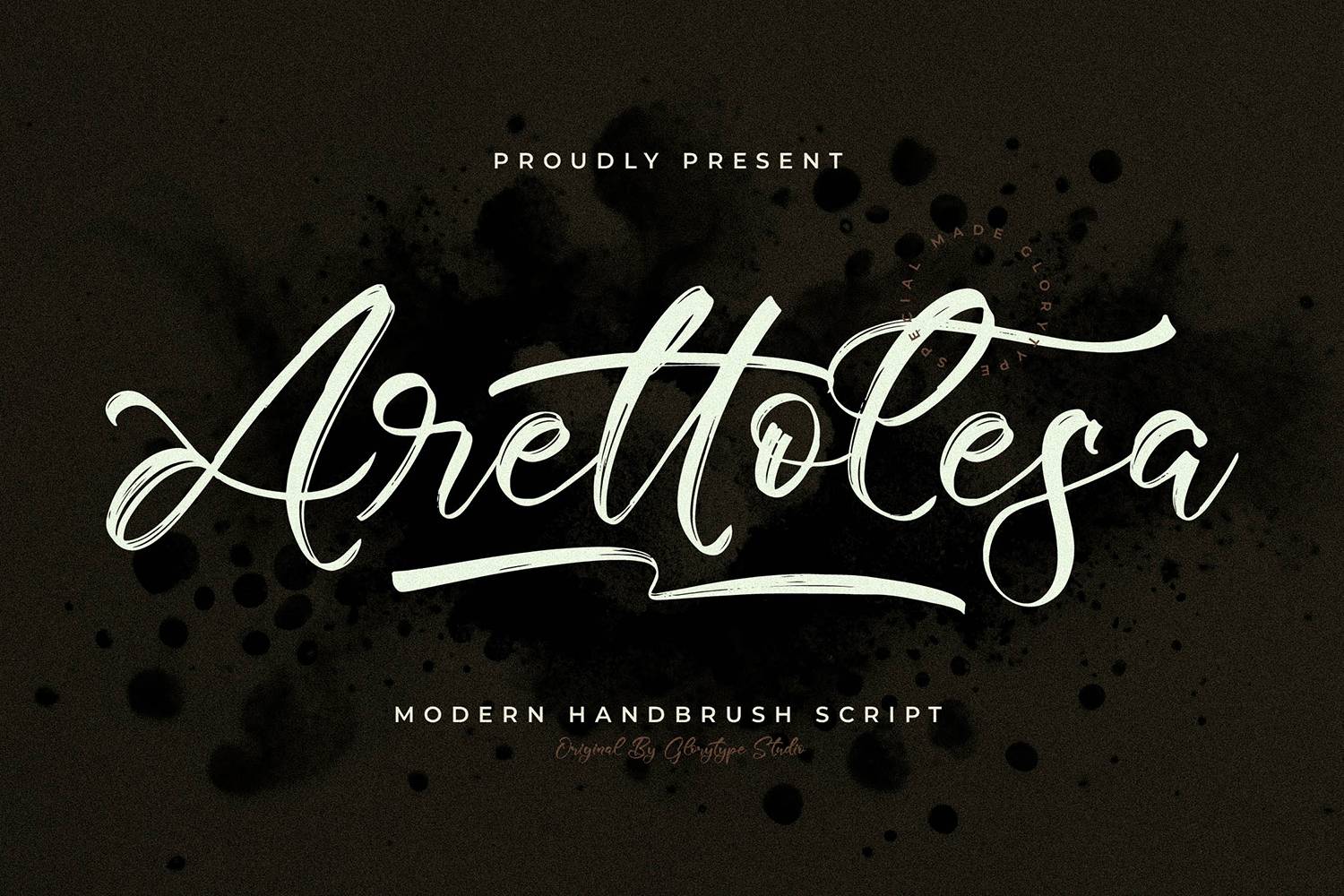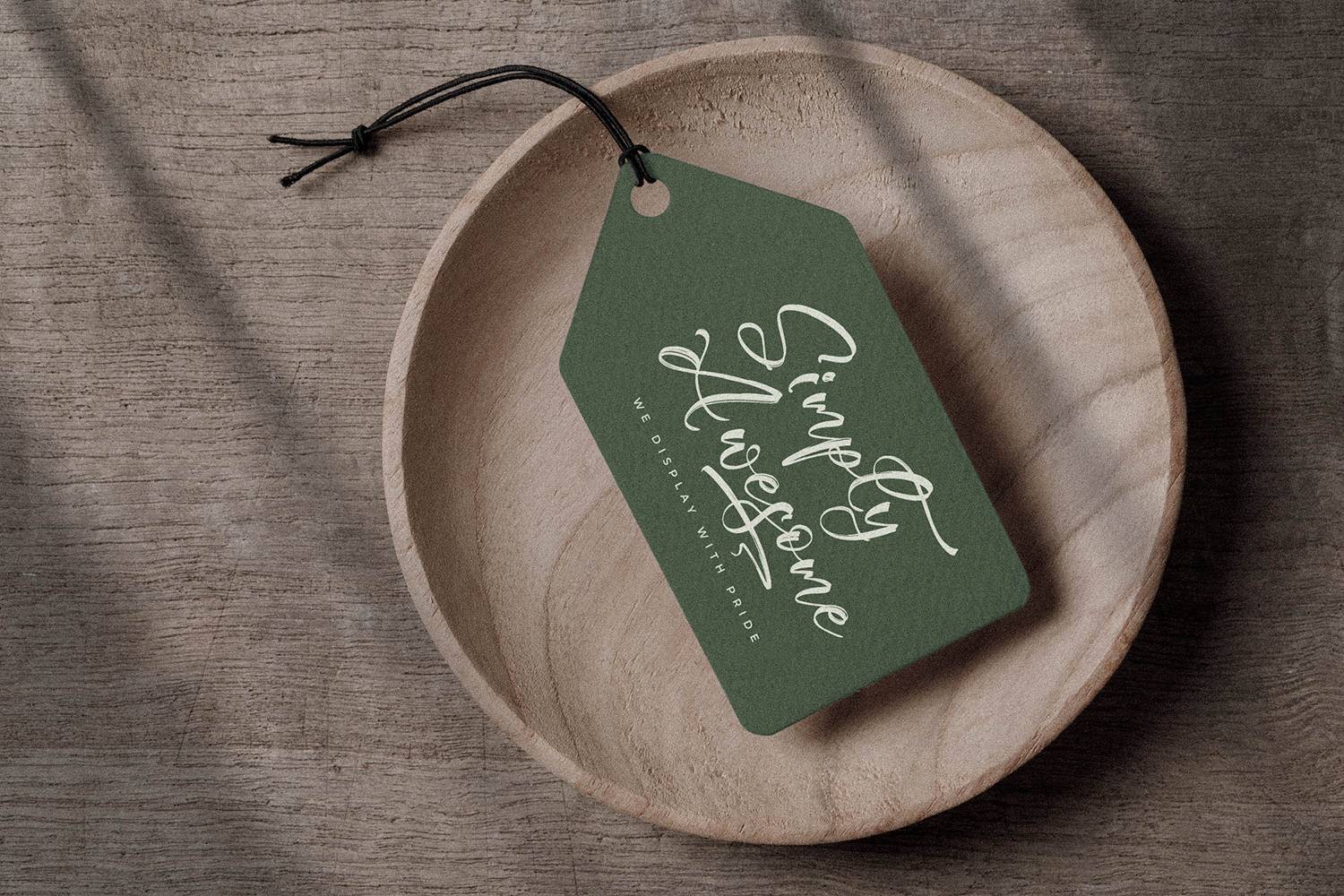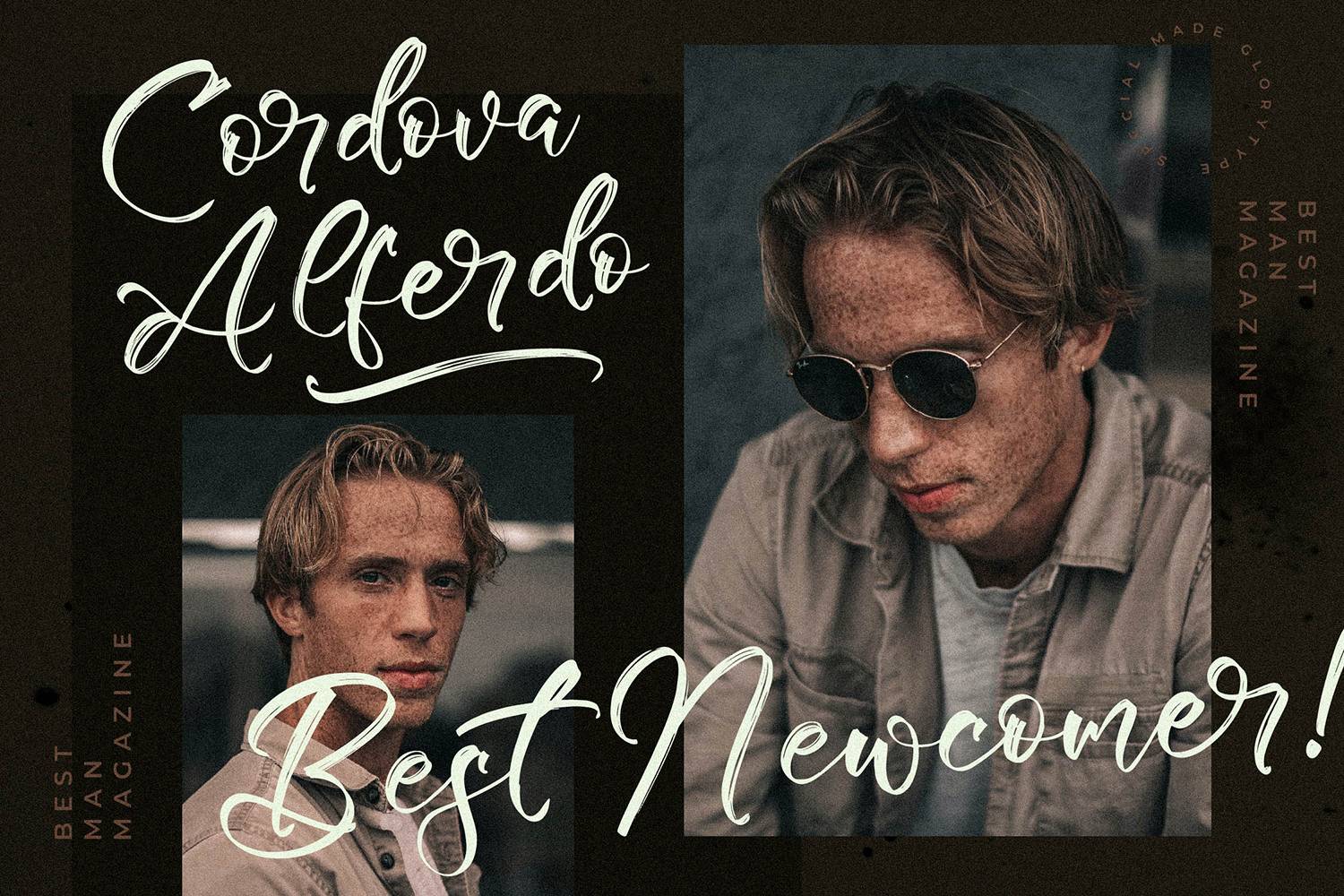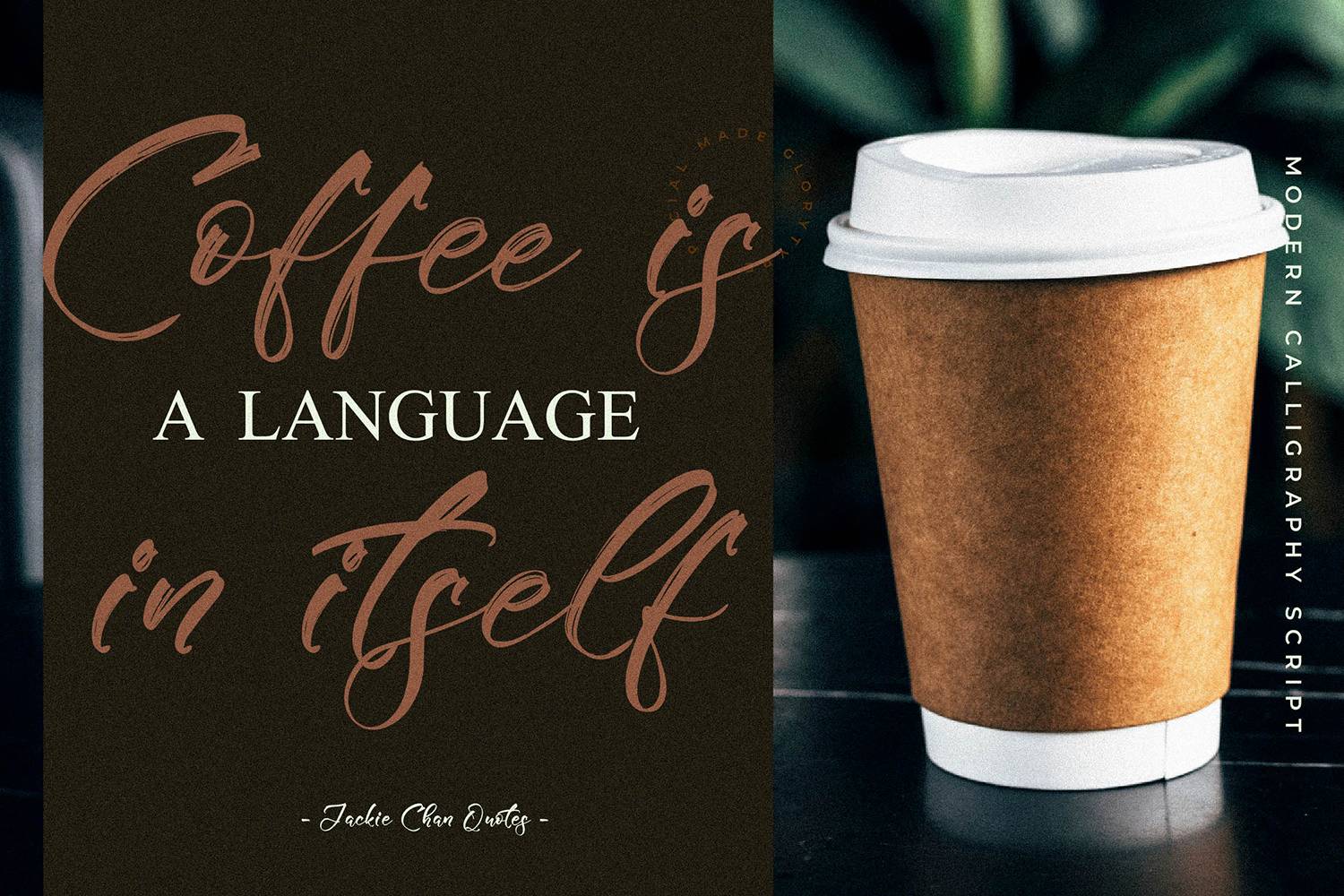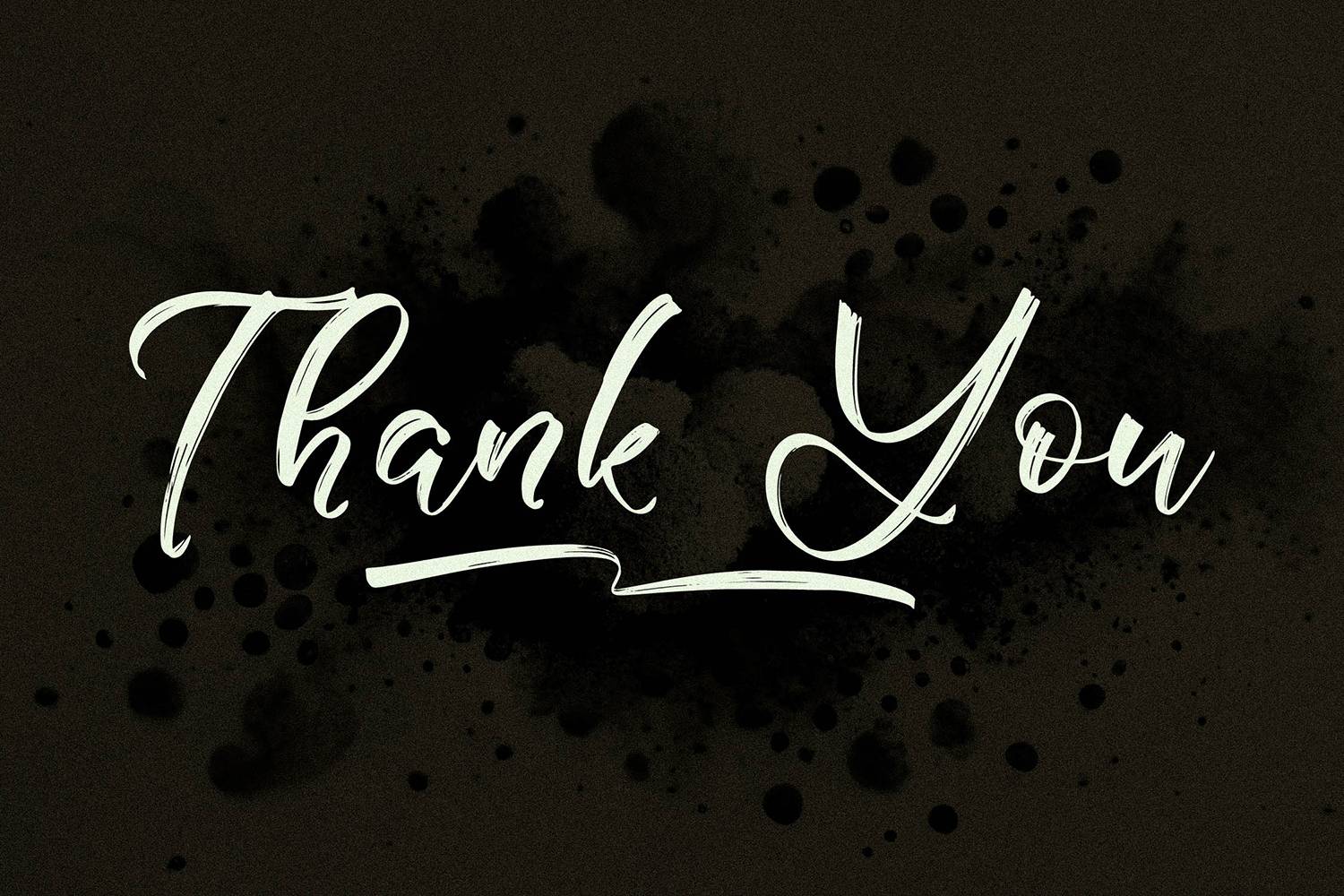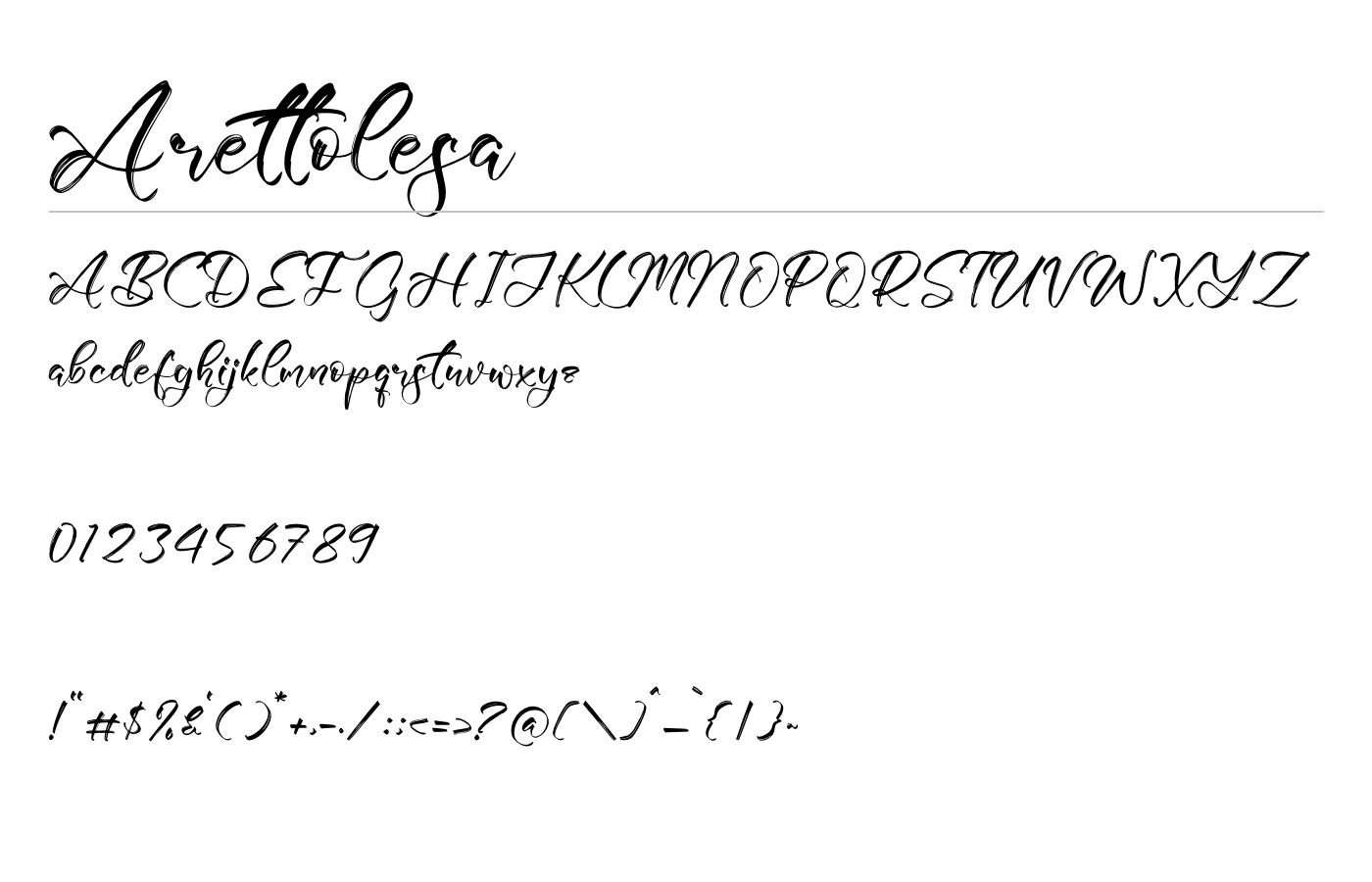
Arettolesa is an elegant script font with fluid, calligraphic strokes that combine thin and slightly bold lines to create a graceful, handwritten style. Its high contrast and decorative letterforms give it a sophisticated and artistic feel, making it ideal for wedding invitations, luxury branding, and creative projects that seek a personal, refined touch. This font shines in headlines and logos where a delicate, stylish impression is desired.
Arettolesa Font
About Arettolesa Font